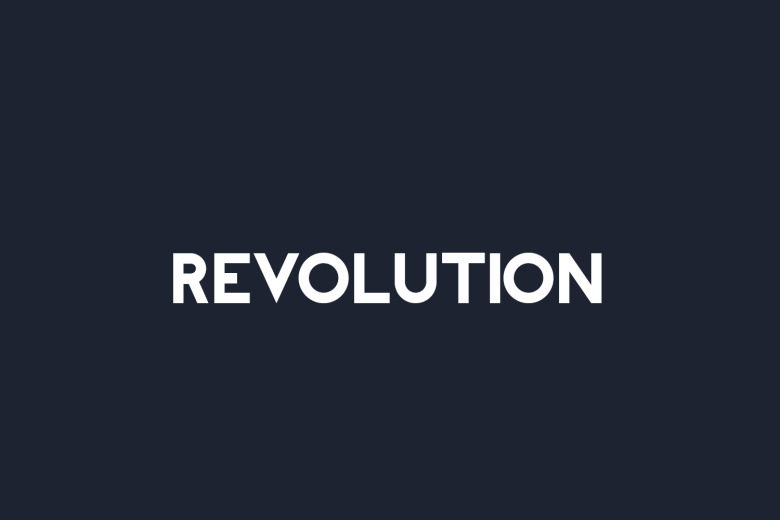
Revolution Font
Revolution is a high quality Sans Serif font that is designed by Saji Johnny Kundukulam and is available for free download and personal use. The free version provides all uppercase and lowercase letters and a few special characters too.
Revolution Sans Serif Font